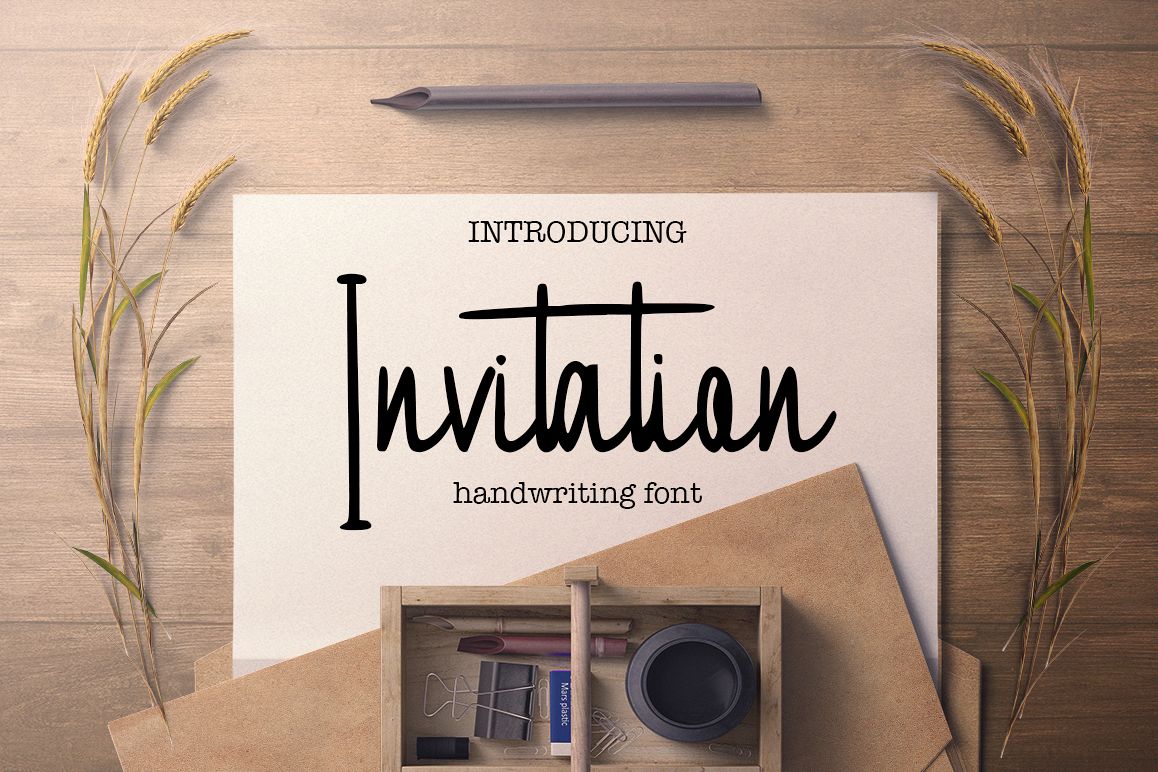
Invitation handwritten font
Invitation-Regular
Invitation is a beautiful font, perfect for adding some romance and charm to your designs. This script functions most strongly as a display or headline font. suitable for logo, logotype, branding,wedding, fashion, label, book cover, t-shirt, instagram post, and otheralso this font is amazing for different project ex: photography, watermark, quotes, blog header, poster, wedding, branding, logo, fashion, apparel, letter, invitation, stationery, etc.Features OTF, TTF, WOFF
Invitation handwritten font